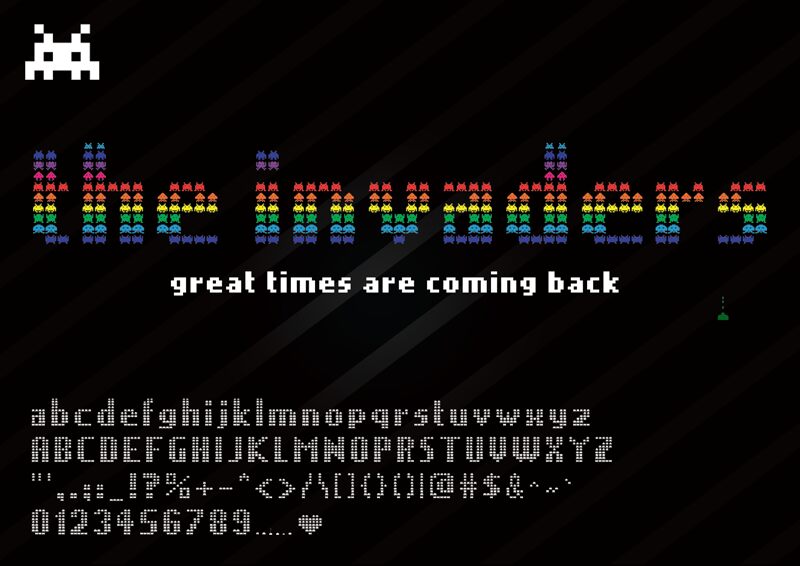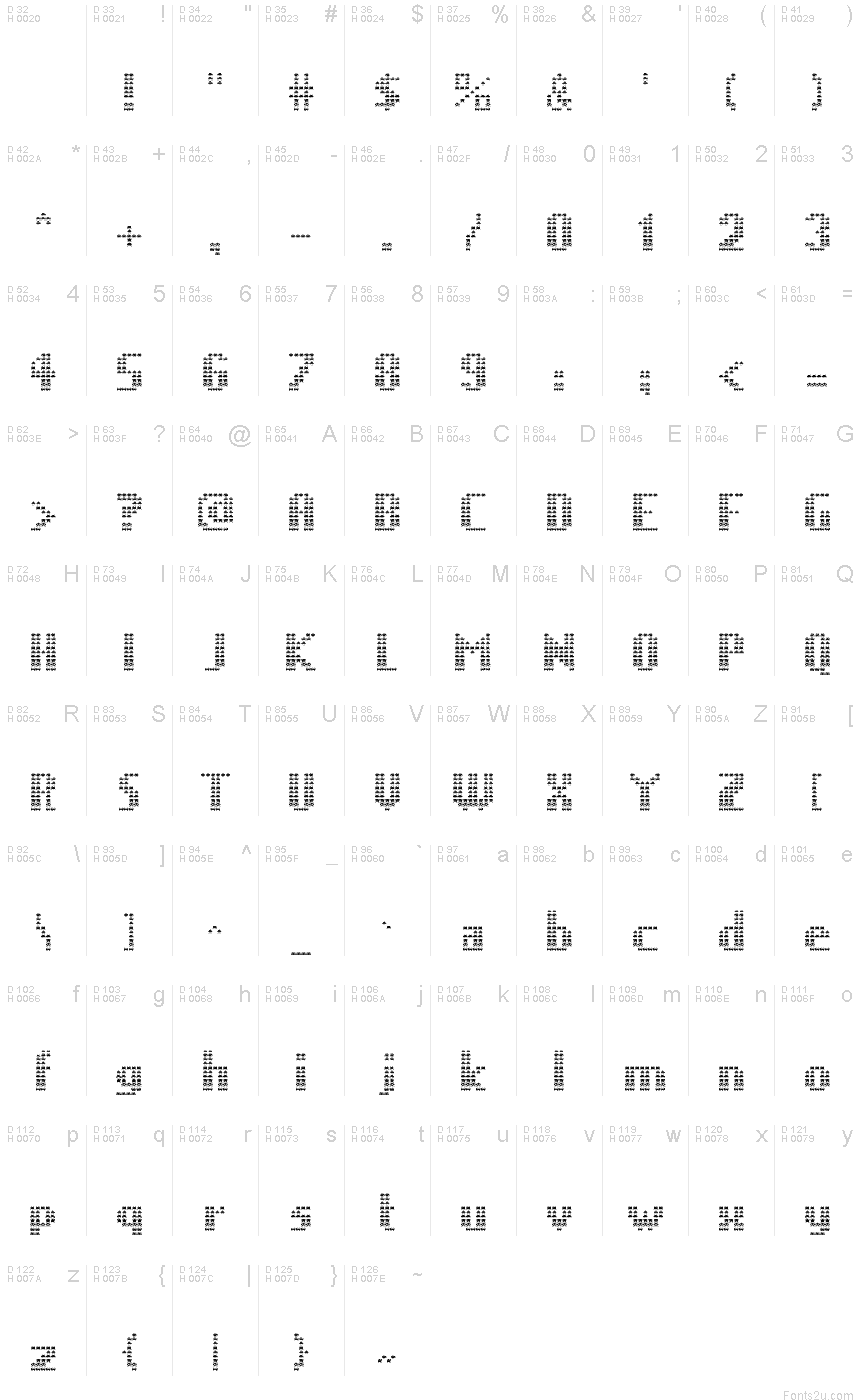
The Invaders Regular
Hi there! My font was criated by myself and it was kind of hard because it is my first creation! It is not complete, I only did the basic of the Basic Latin, but I will increase it on the future.
Well, have a good time and nostalgia playing and writting with it.
Tip: Use it as vector and play with colors! Make remember the lines of Invaders like in the game! And don't forget the ships!